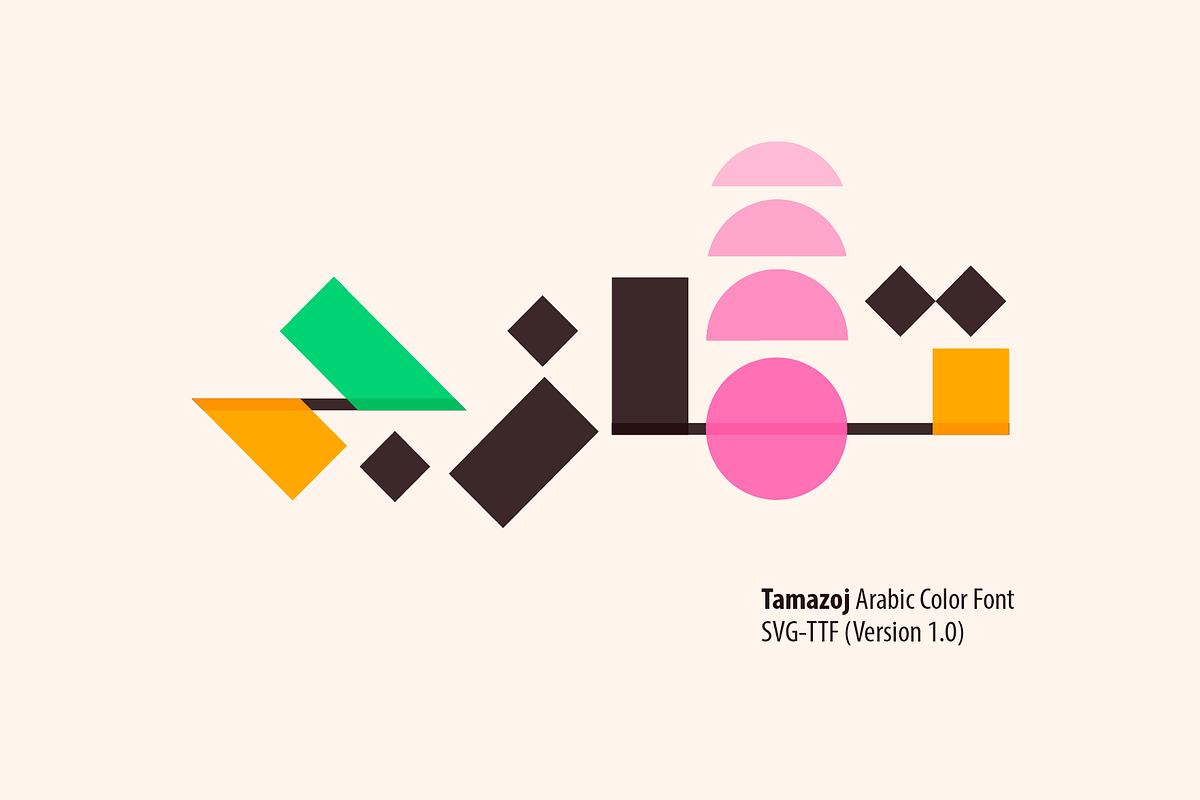
Tamazoj – Arabic Color Font Free Download is a vibrant and expressive typeface that blends traditional Arabic script with a modern, multicolor twist. Please note, you are required to purchase this font for commercial use. It is available for free download for testing and personal projects only.
Designed with bold colors and cultural flair, Tamazoj is perfect for festival posters, creative branding, editorial headlines, educational materials, and visual content celebrating Middle Eastern aesthetics. Its layered color design brings eye-catching energy and a unique artistic voice to your typography.